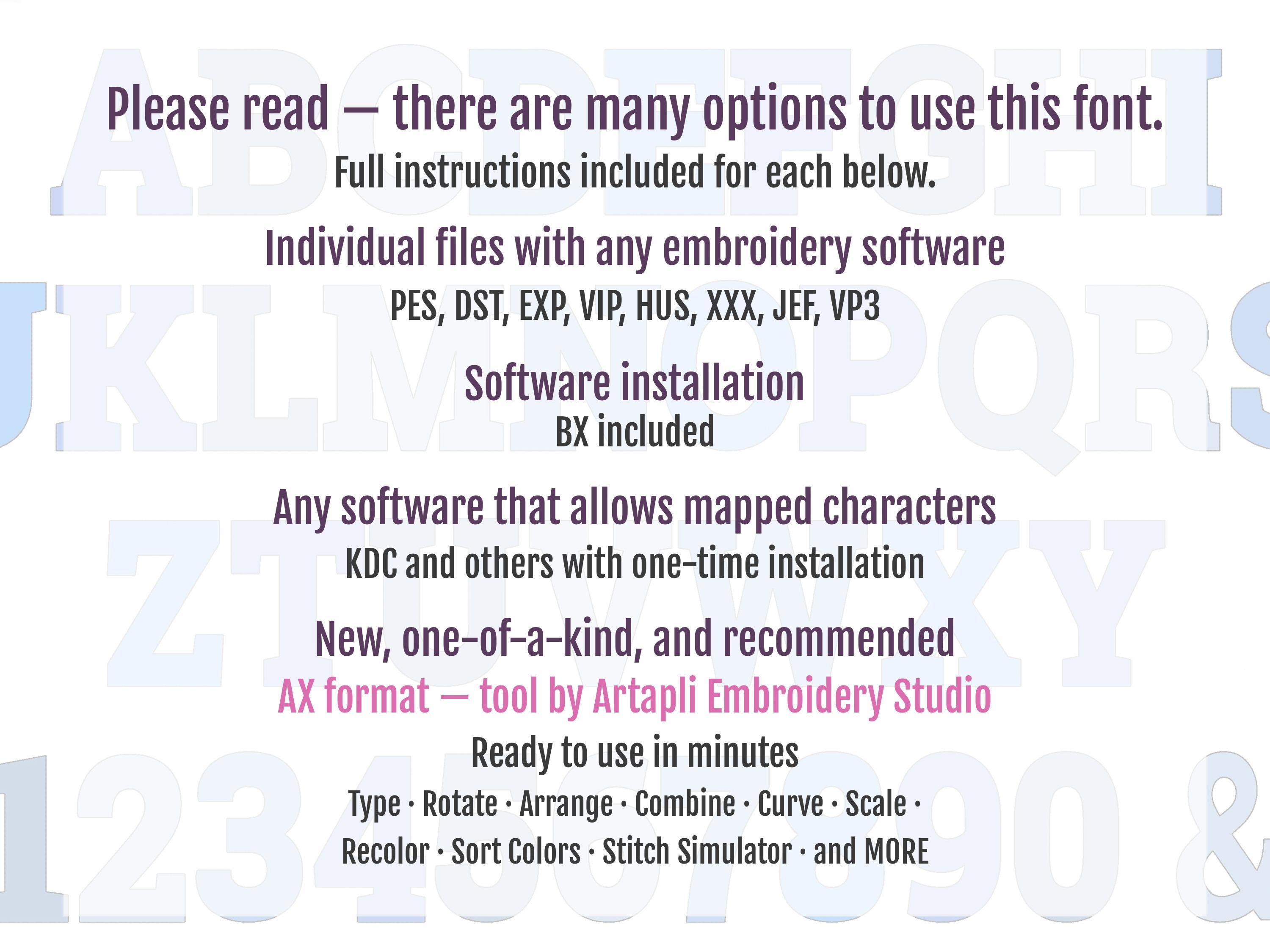
Light applique font Open Edge Raggedy Applique Font Alphabet bean stitch outline machine embroidery designs multiple sizes 2 up to 6 in, BX
Nice letters, easy to work with and you can create a string of text fast.